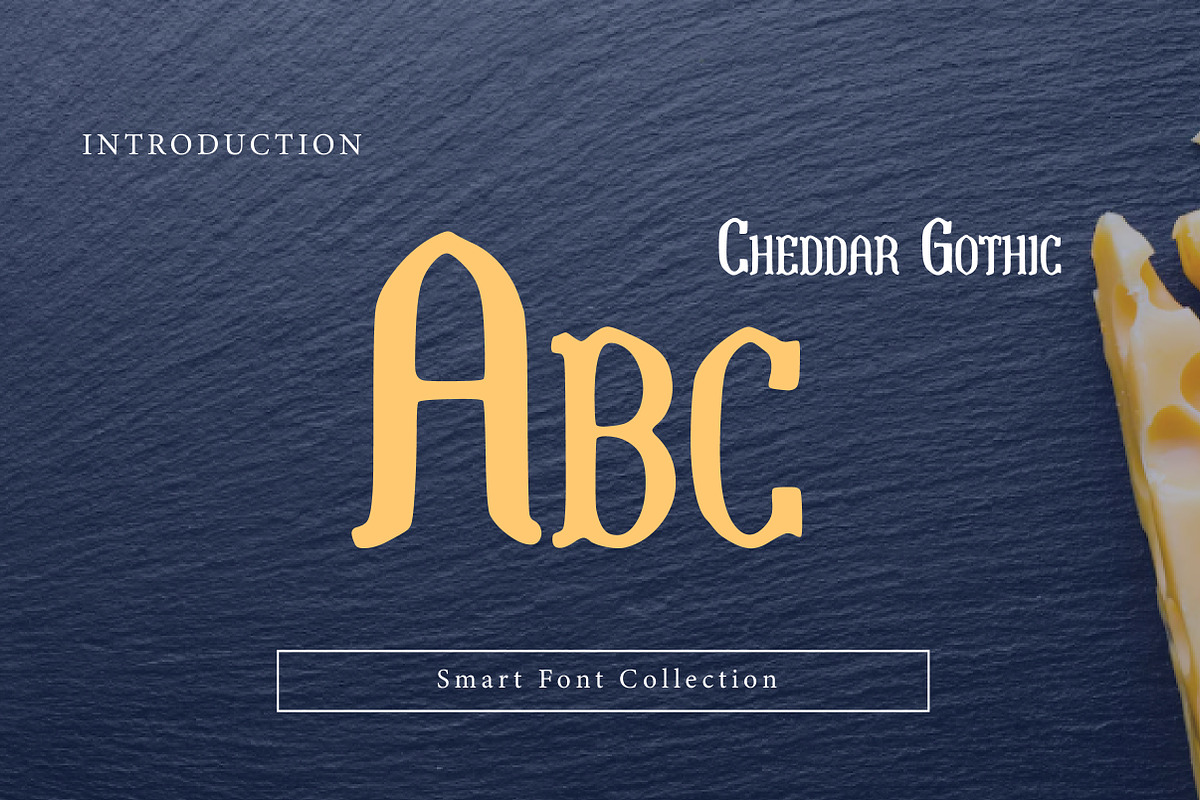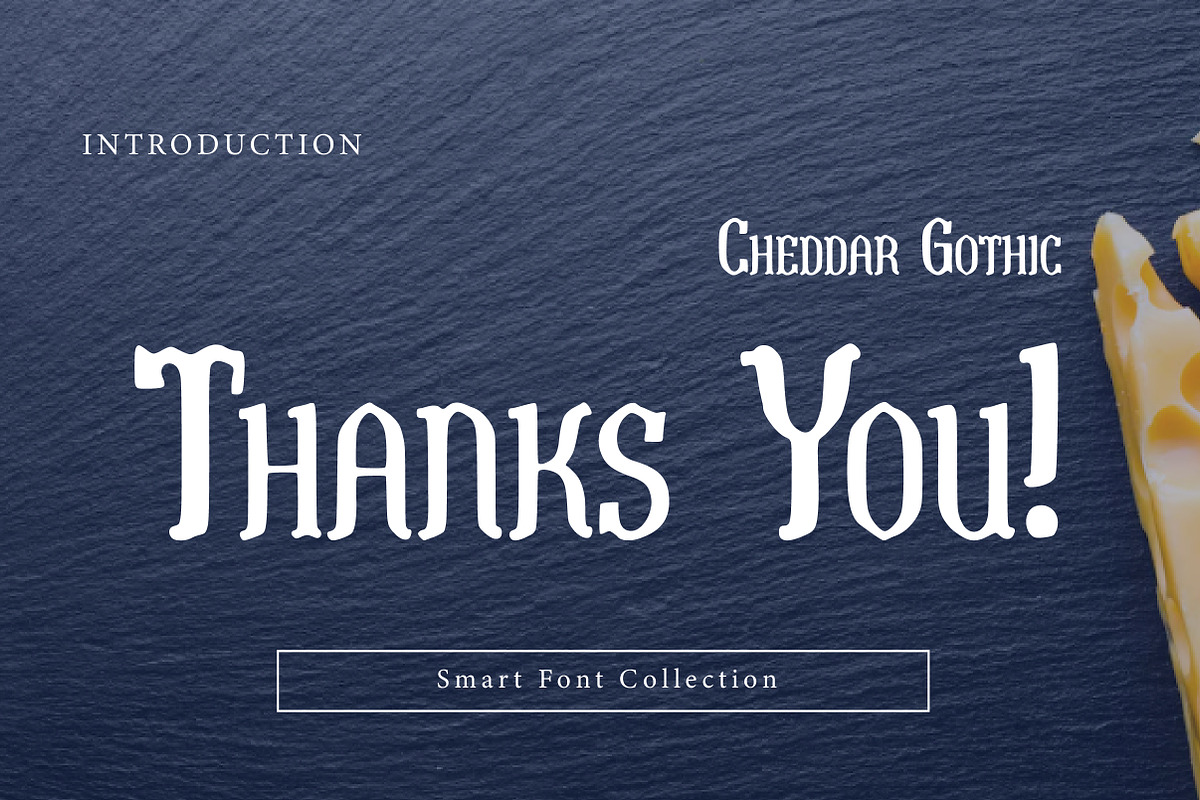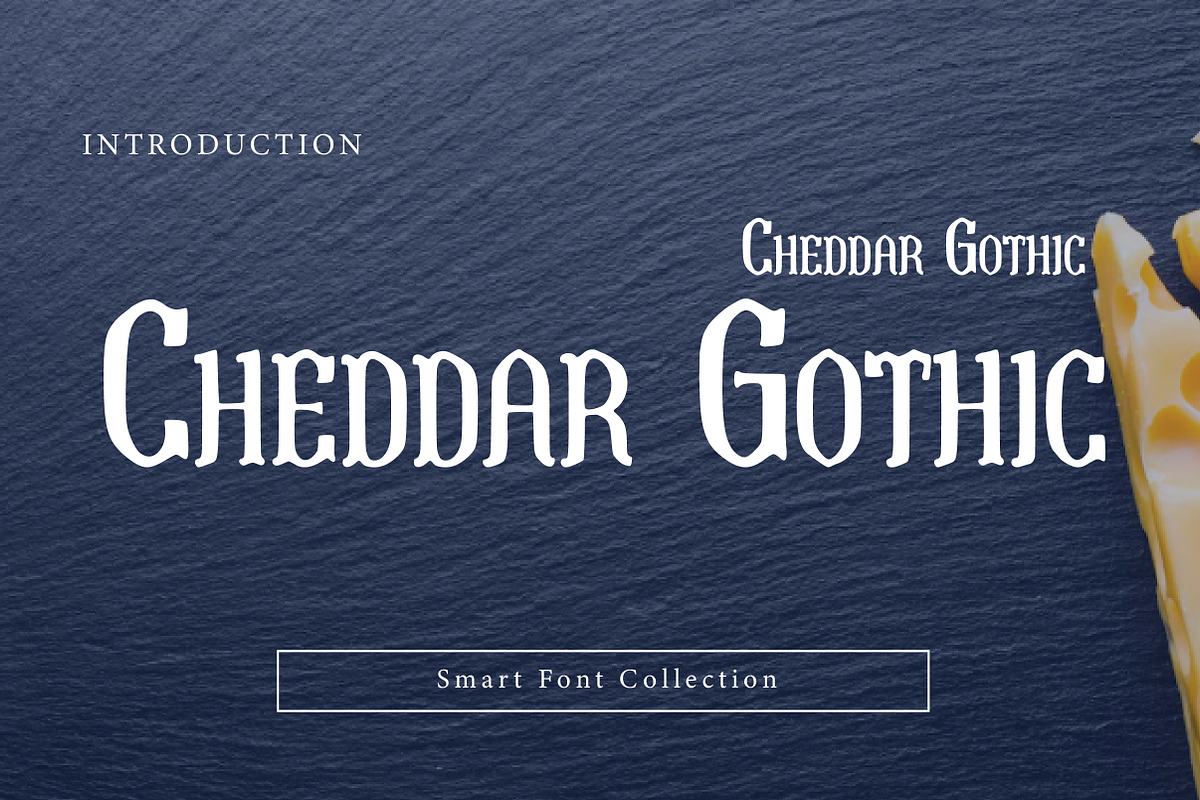
Cheddar Gothic
Cheddar Gothic is a bold, character-rich display typeface inspired by classic Gothic and medieval lettering, but shaped with smooth curves and confident, modern contrast. Its tall capitals, sculpted serifs, and vintage drama make it perfect for logos, packaging, posters, headers, labels, and any design that needs a strong “old-world” voice with contemporary clarity. Use it to evoke heritage, tradition, mystery, and handcrafted authenticity—ideal for branding that wants to feel timeless, theatrical, and unmistakably distinctive.